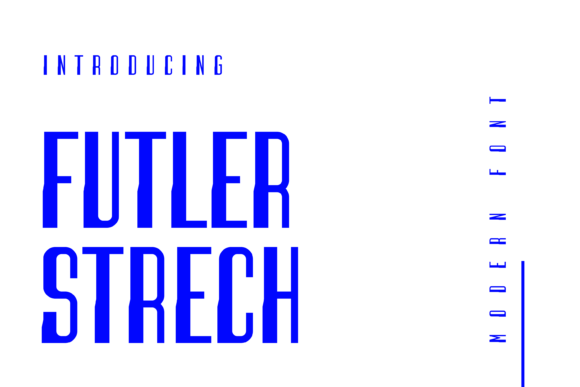
Have you ever stared at a blank canvas, struggling to find the perfect words to bring your vision to life? It’s a feeling many designers know all too well. But what if you had the perfect tool to elevate your creations and make your message shine? Introducing the Futler Strech Font, a cool and modern display font that’s sure to take your designs to the next level.
Whether you’re working on a graphic design project, creating a logo, or crafting a social media post, the Futler Strech Font has the potential to be an incredible asset to your font library. Its versatility and sleek design make it a valuable addition to any designer’s toolkit, allowing you to add a touch of sophistication and style to any creation.
Futurer Stretch Font Key Features
- Unique Characteristics: Stretched and condensed font styles, ideal for modern and futuristic designs
Futler Strech Font Review
I recently had the chance to work with the Futler Strech Font, and here’s my honest review.
- The Futler Strech Font has a unique and futuristic feel to it, making it perfect for projects that need a modern touch.
- The font is highly customizable, allowing you to adjust the stretchiness and width to suit your design needs.
- The font family includes a wide range of weights and styles, making it easy to find the perfect fit for your project.
- The Futler Strech Font can be a bit overwhelming in large blocks of text, making it difficult to read.
- The font may not be suitable for projects that require a more traditional or formal look.
- The font’s stretchiness can be a bit unpredictable, making it difficult to achieve a consistent look across different platforms.
Overall, I would say that the Futler Strech Font is a great addition to any designer’s toolkit. While it may have some limitations, its unique features and high level of customization make it a valuable asset for projects that require a modern and futuristic look.
Futurerch Stretch Font is ideal for creating futuristic, sci-fi, or tech-related designs. To get the most out of it, try combining it with bold colors and geometric shapes. Experiment with different font sizes and styles to create a visually striking effect